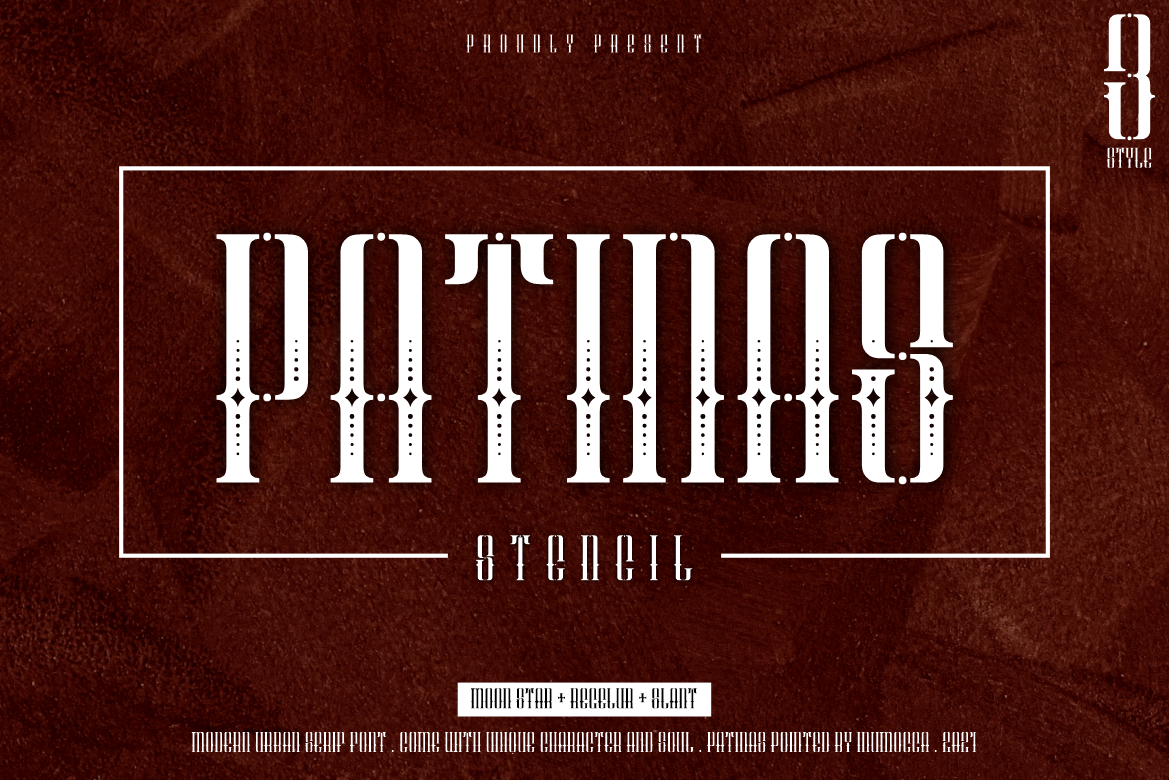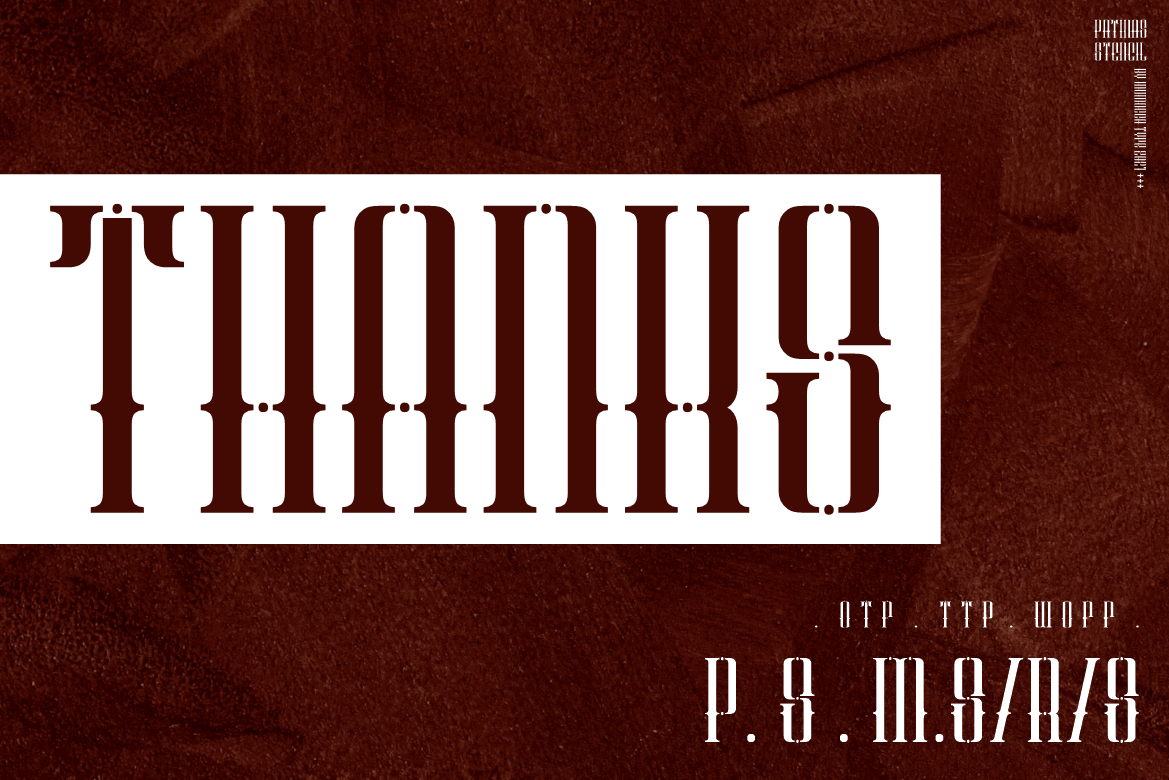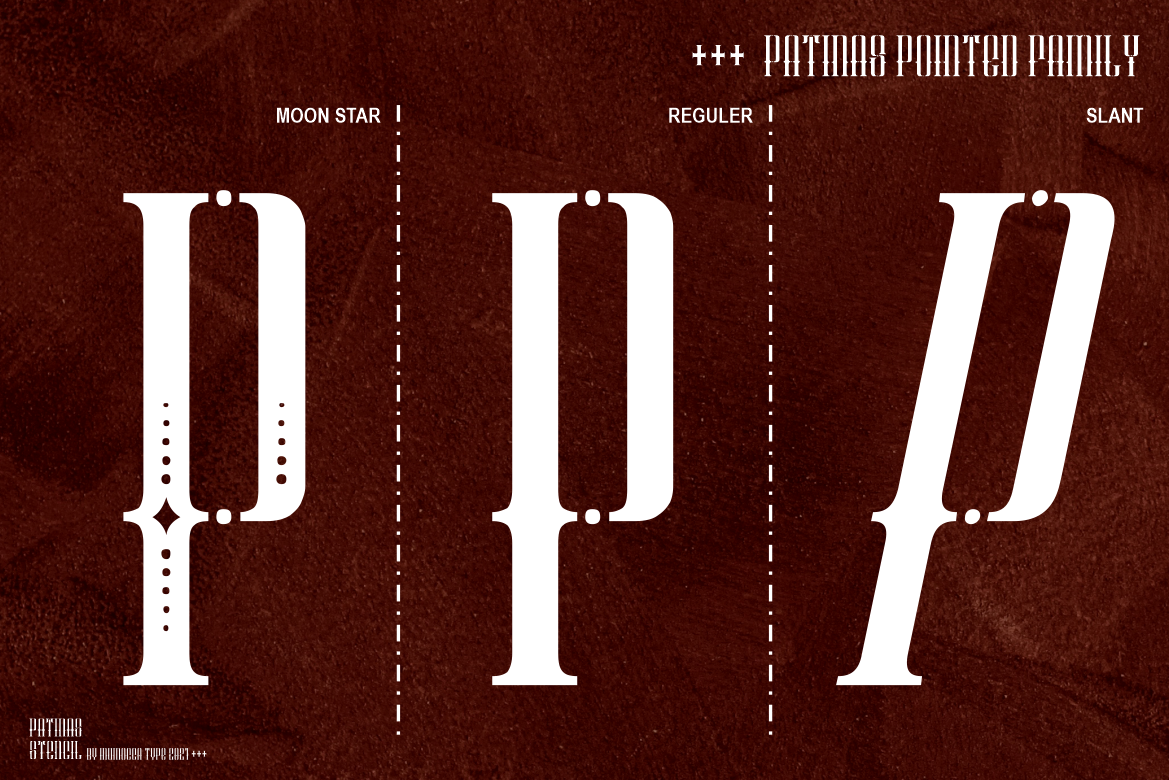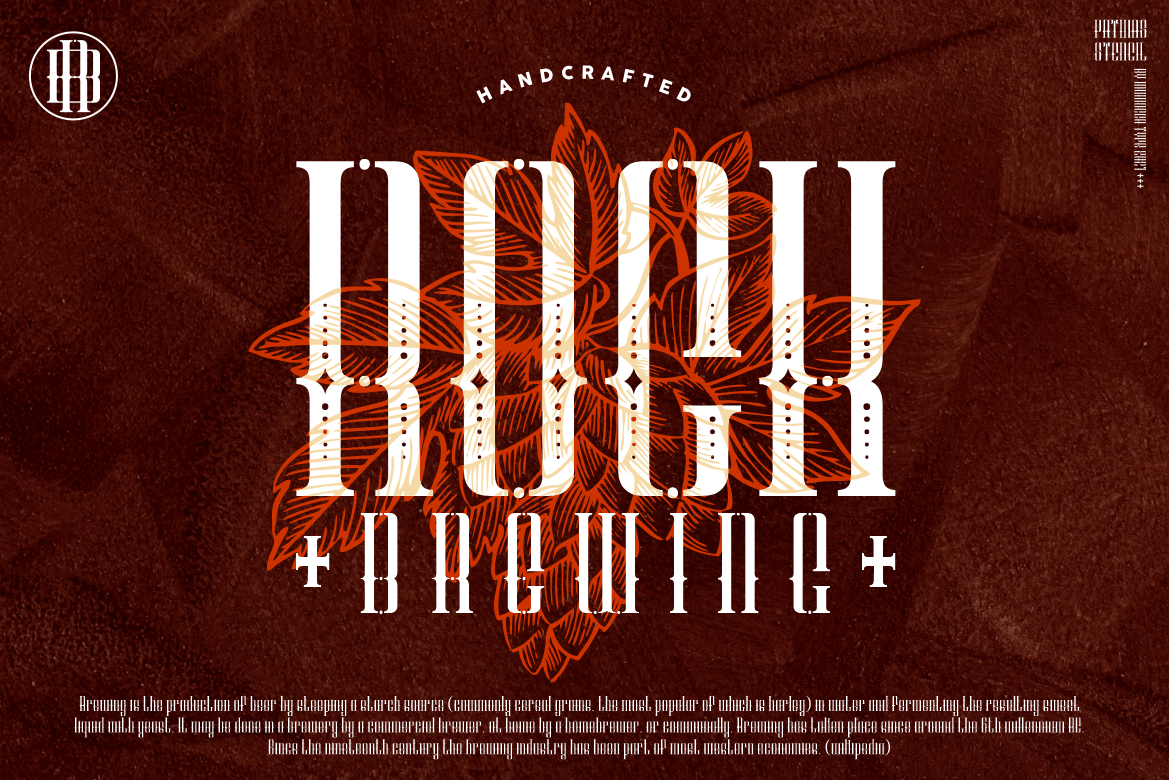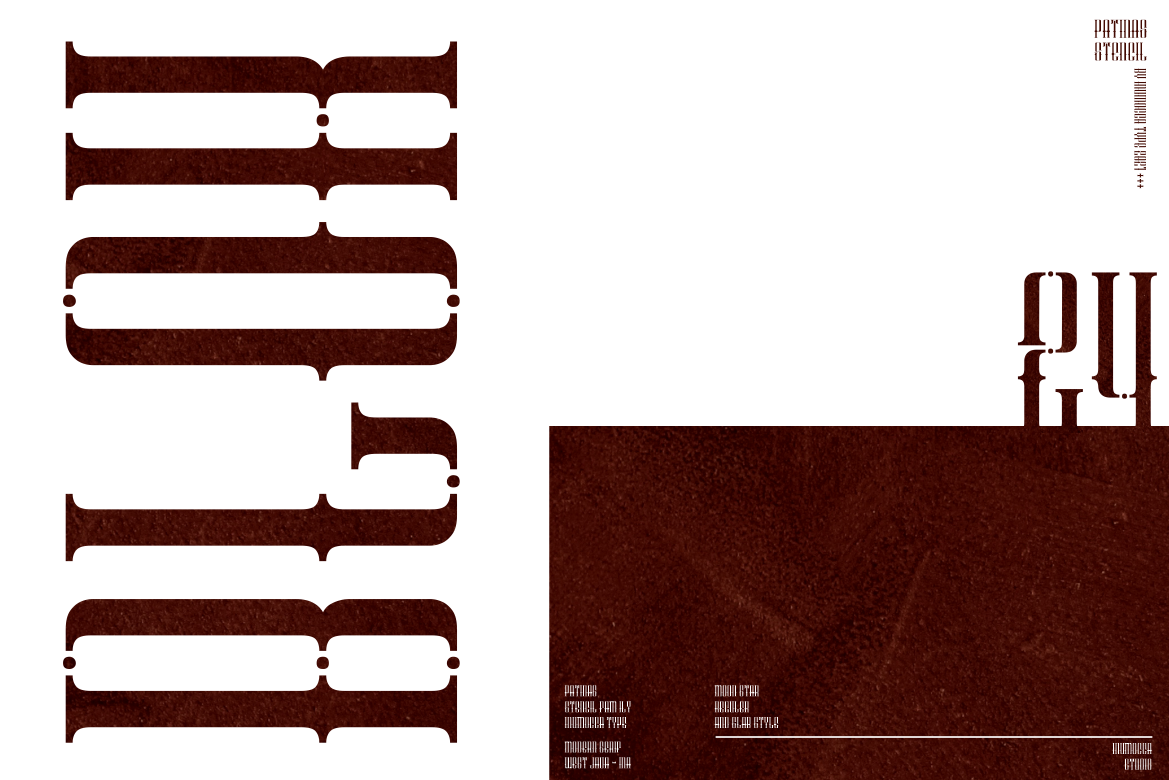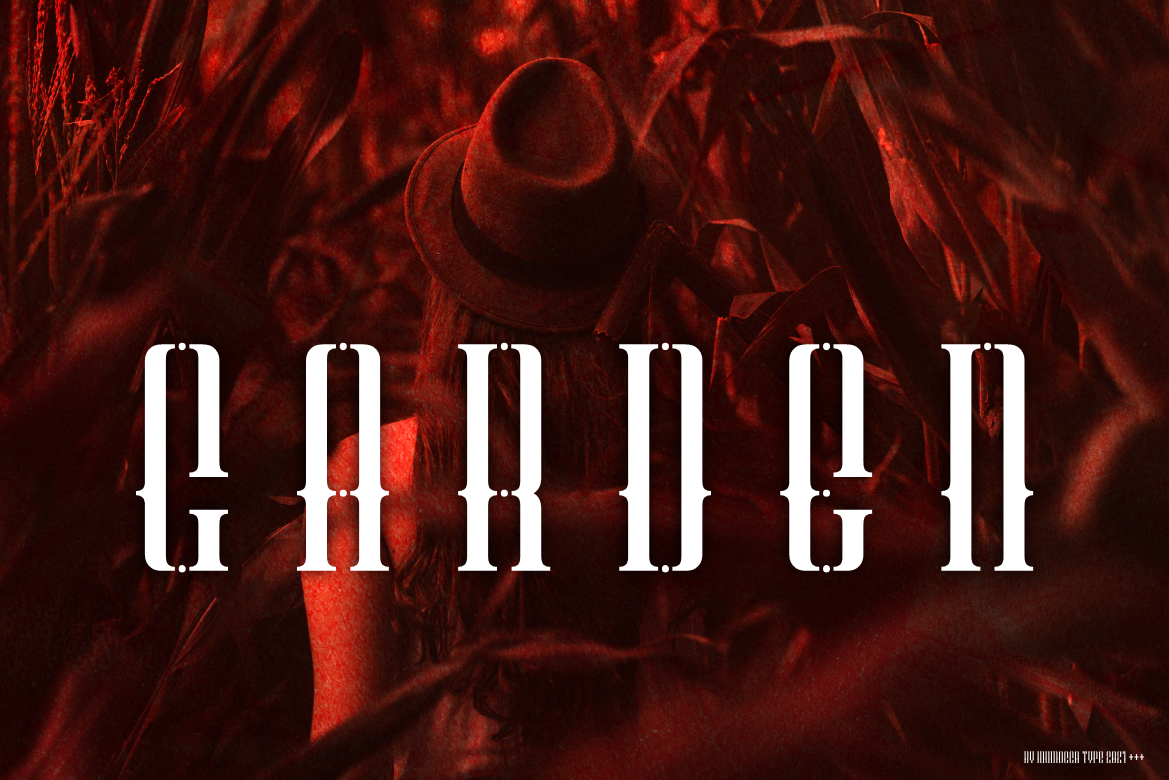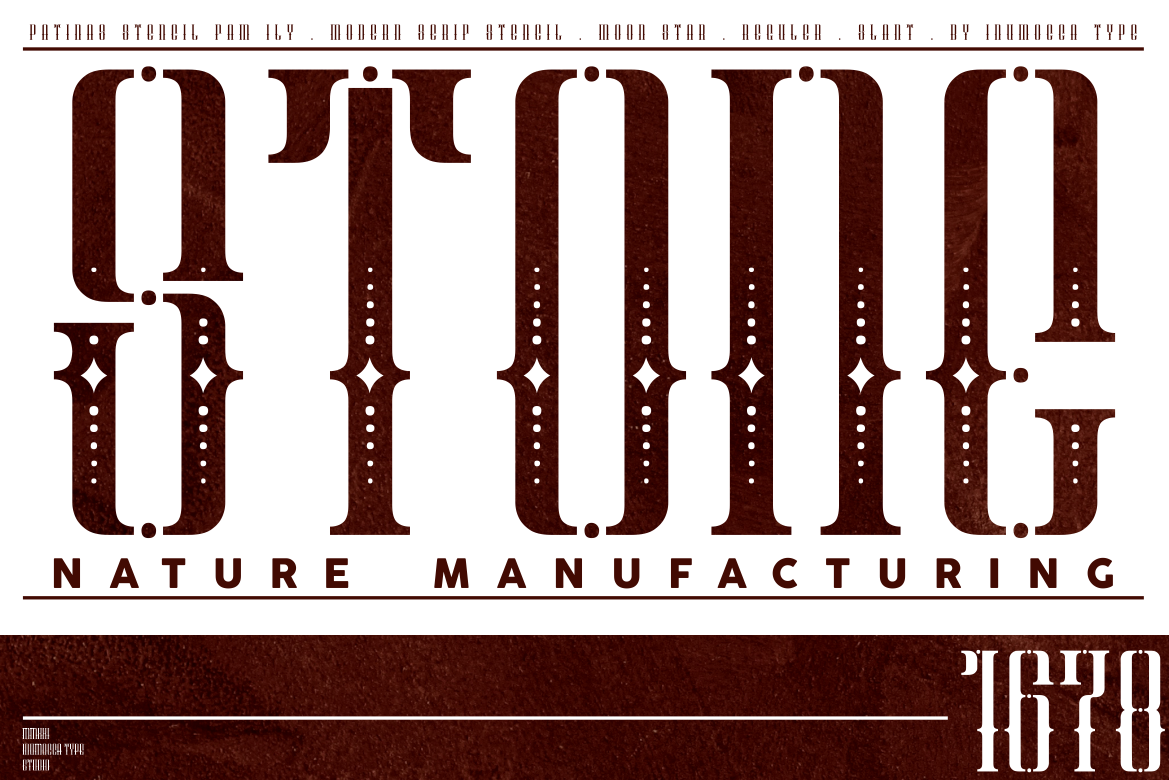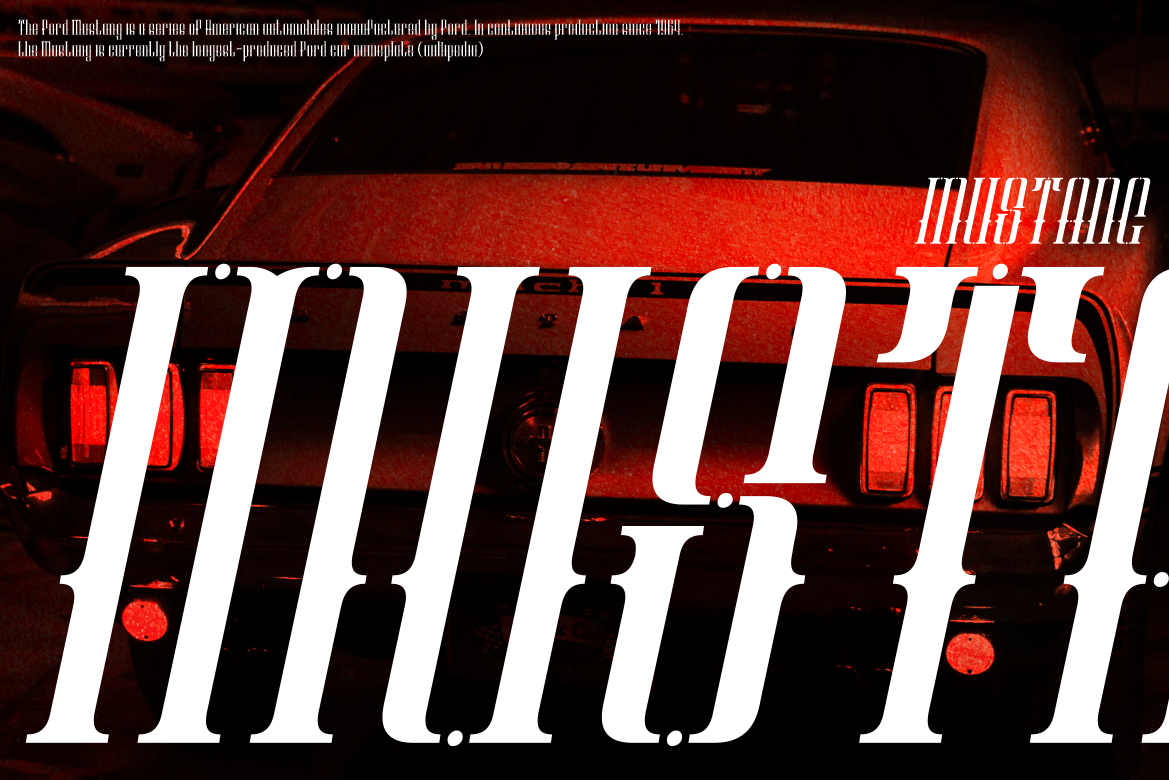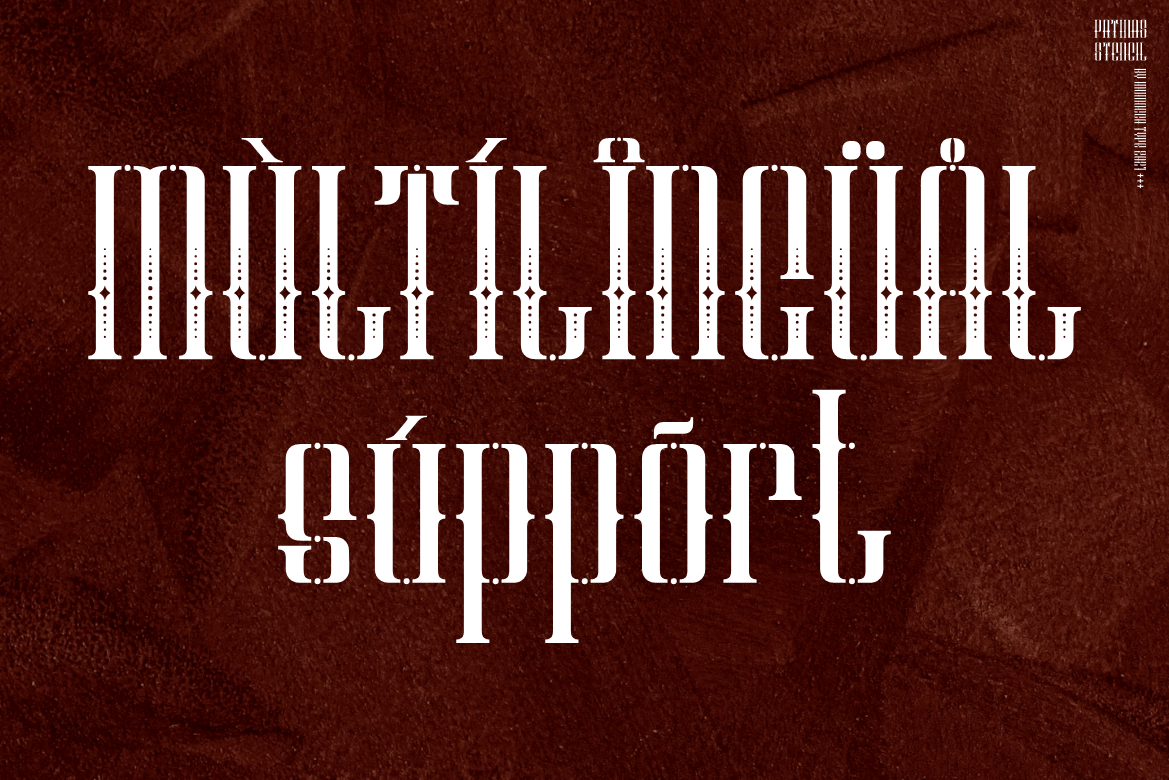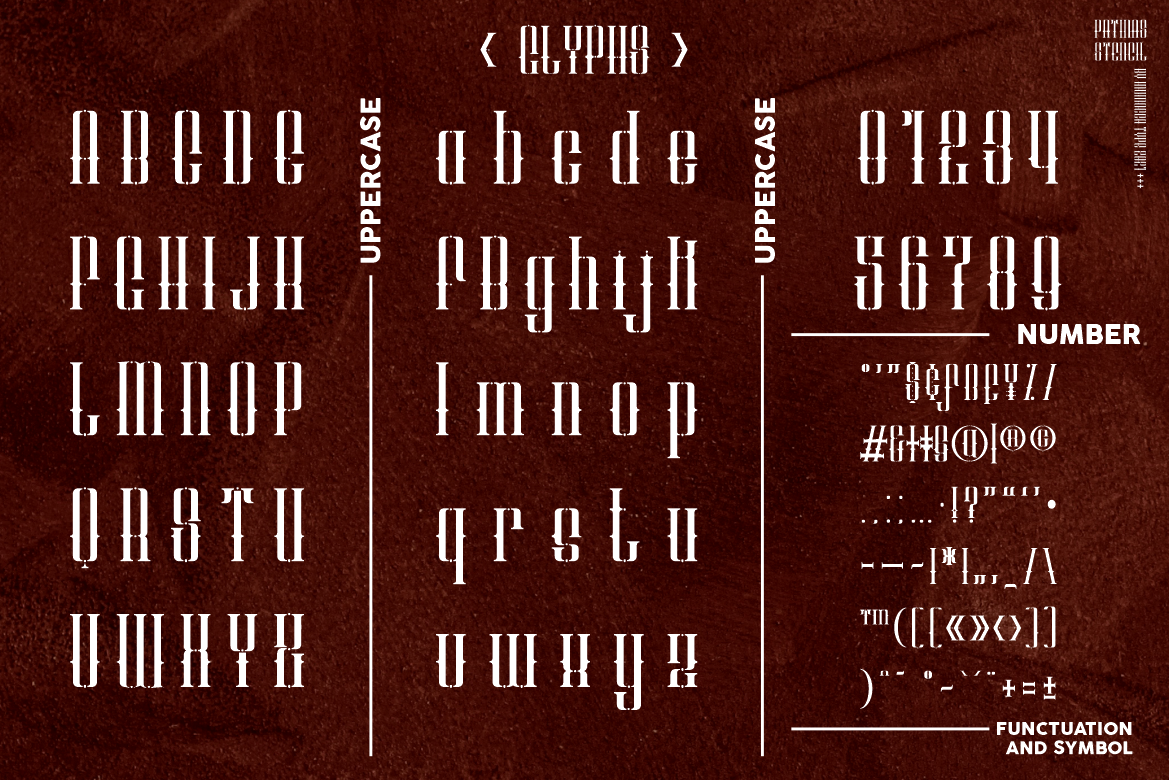
Patinas Stencil Family come with 3 Style Moon Star , Reguler and Slant. Modern Urban Serif Font, Powerfull and has a great Character, Good Font to use for covering your Project, like Branding, Headline Letter, Flyer, Signage, Quotes, Poster Typography, Bookcover, Magazine cover, Poster, Quotes Lettering, Logos, and more your project design.
• Unique glyphs
• Multilingual Characters Support
• UPPERCASE
• Lowercase
• Numeric
• Symbol
• Punctuation Character